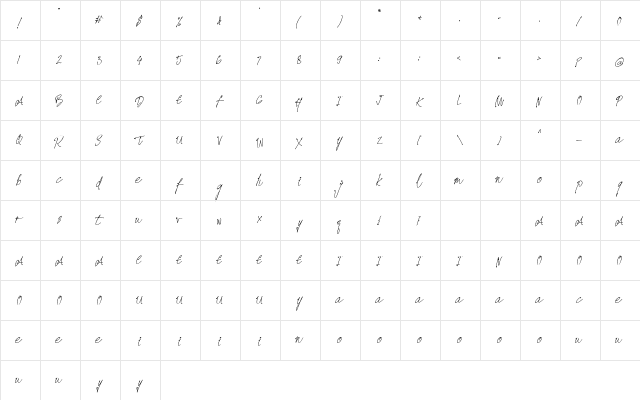
Prizertiez Regular
| Foundry | Rometheme Std |
| Designer | Rometheme Std |
Design Context for Prizertiez Typeface
Prizertiez is a composed and adaptable typeface that performs quietly and consistently across a wide range of design contexts.